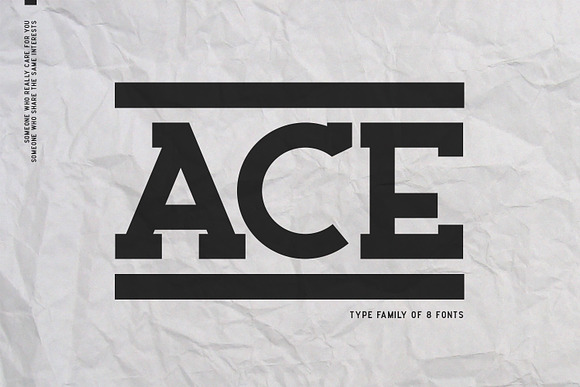
Ace Serif Font
Ace Serif Font is perfect for book publishing, newspaper layouts, magazine design, academic publications, legal documents, corporate reports, traditional branding, editorial headlines, professional correspondence, and classic advertising materials. This versatile typeface excels in both digital and print applications requiring timeless authority.
Ace Serif Font is exciting because it combines classical elegance with modern readability, offering traditional serif letterforms that convey trustworthiness and scholarly authority while maintaining excellent legibility across all sizes and reading conditions. Its refined character creates professional communications that establish credibility and expertise.
The Ace Serif Font family includes regular, bold, light, italic, condensed, extended, and display variants, providing designers with comprehensive typographic options for various design scenarios and traditional communication hierarchies.
Ace Serif Font embodies the timeless principles of classical typography, delivering exceptional performance for organizations that value tradition, expertise, and scholarly authority in their communications. This distinguished typeface draws from centuries of typographic heritage while incorporating modern refinements that ensure optimal performance across contemporary media platforms. The font's authoritative character makes it particularly valuable for law firms, financial institutions, publishing houses, and academic organizations that require typography capable of conveying gravitas and intellectual credibility.
The structural foundation of Ace Serif Font demonstrates masterful understanding of traditional letterform construction, with carefully crafted serifs and balanced proportions that enhance reading comfort during extended text consumption. This classical excellence ensures superior performance in demanding reading environments, from dense legal documentation to complex academic publications. The font's dignified presence creates professional communications that inspire confidence while maintaining the readability essential for information-heavy applications.
Designers utilizing Ace Serif Font Free Download will appreciate the typeface's versatility across traditional and contemporary design challenges. Its classical styling bridges historical typography with modern functionality, making it suitable for established institutions and organizations requiring credible, authoritative visual communication. The font's prestigious presence makes it especially effective for museums, libraries, educational publishers, and professional services that must communicate knowledge and expertise through refined, trustworthy visual design.
Whether developing scholarly publications, creating corporate communications, or building institutional brands, Ace Serif Font provides the typographic authority needed for communications that establish expertise while maintaining professional standards and achieving lasting credibility across all traditional and digital platforms.